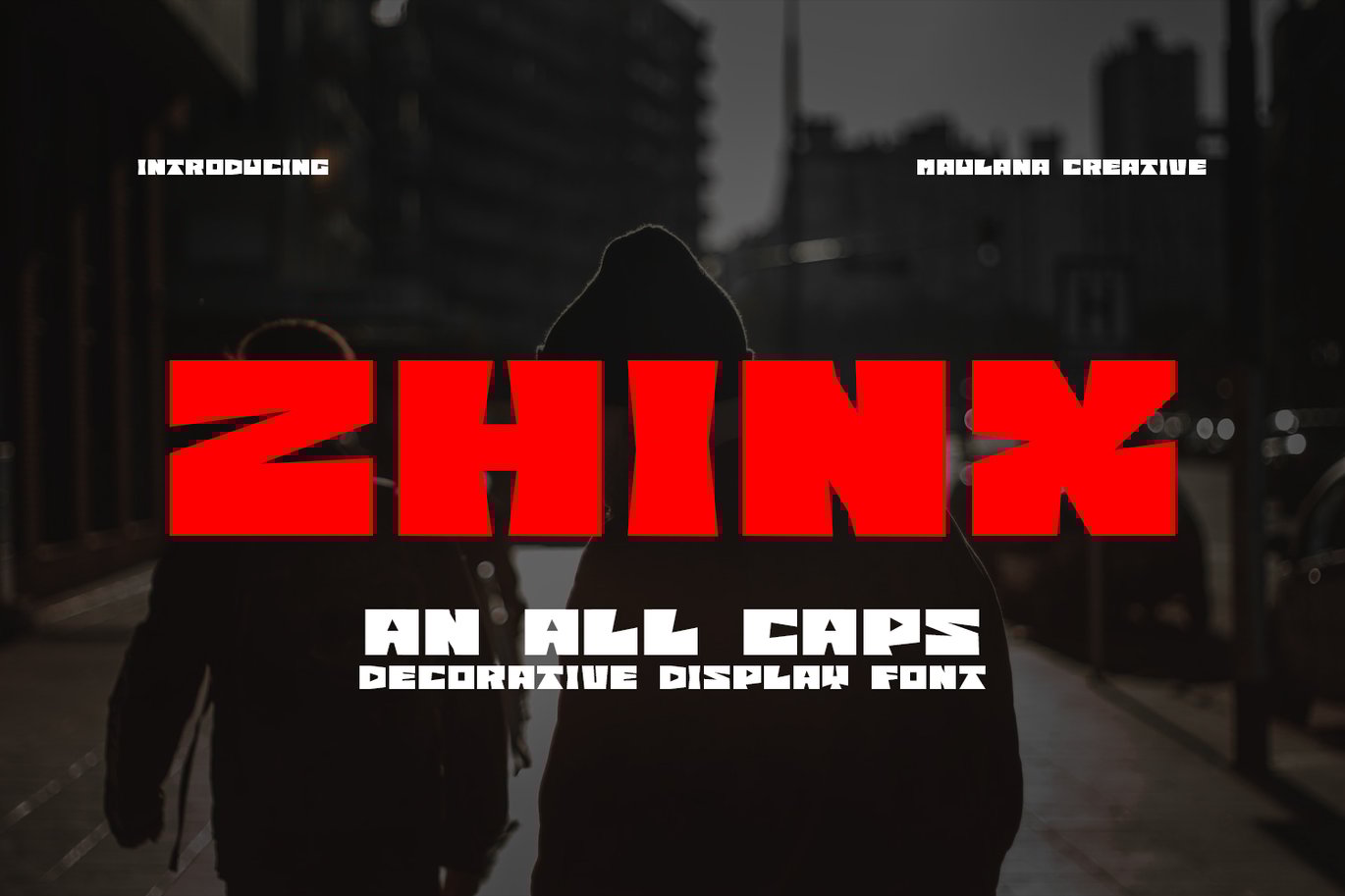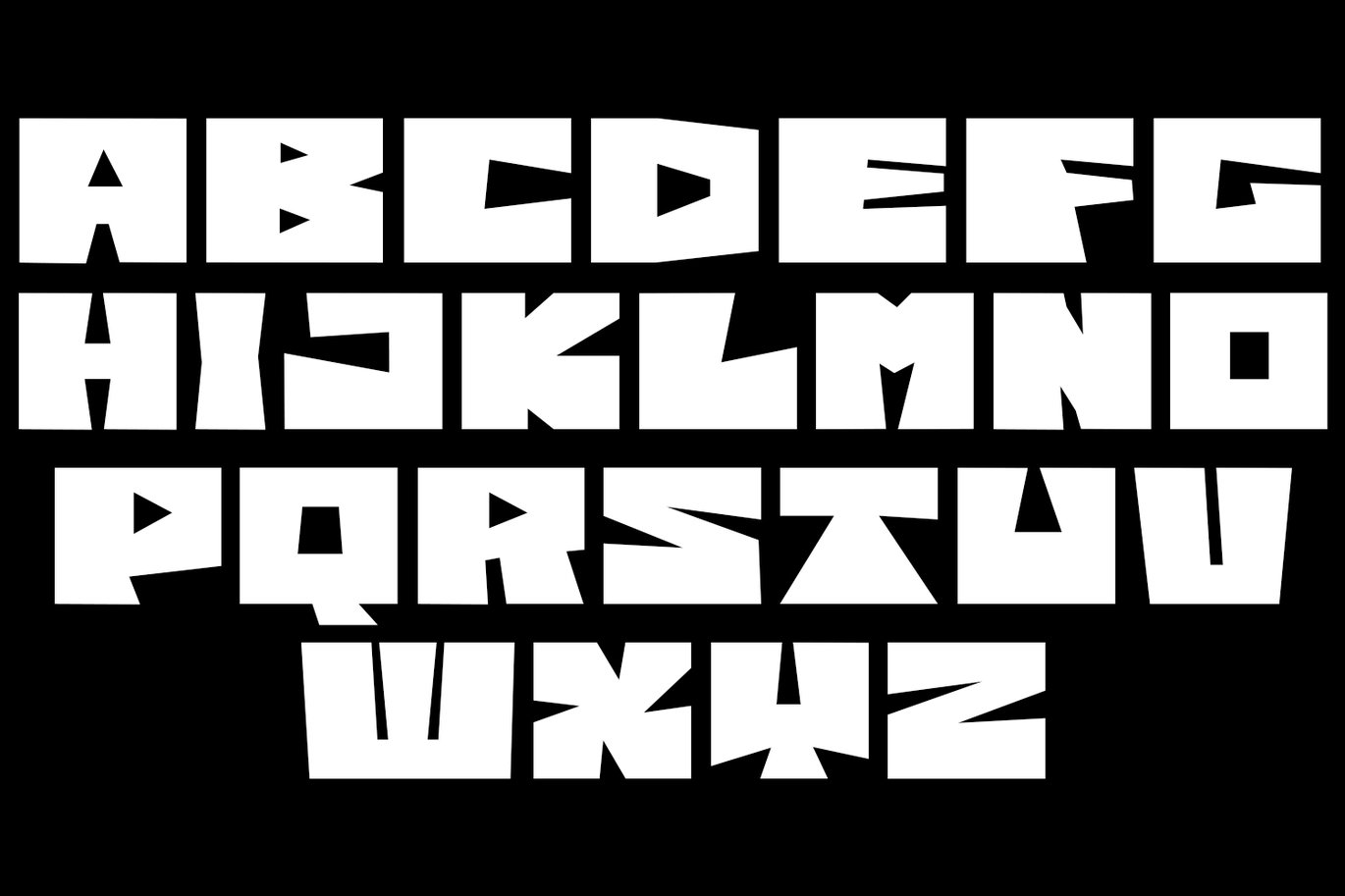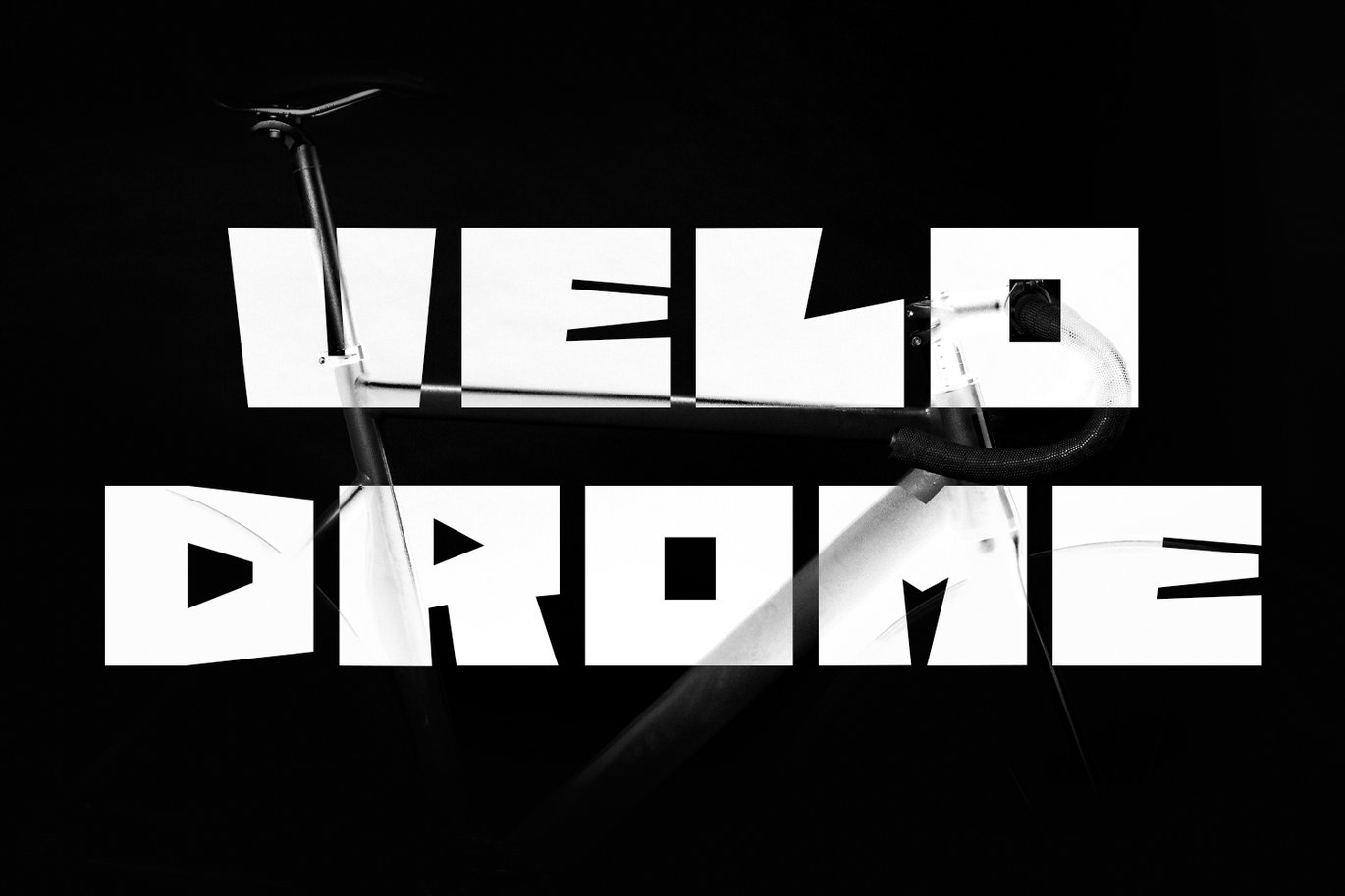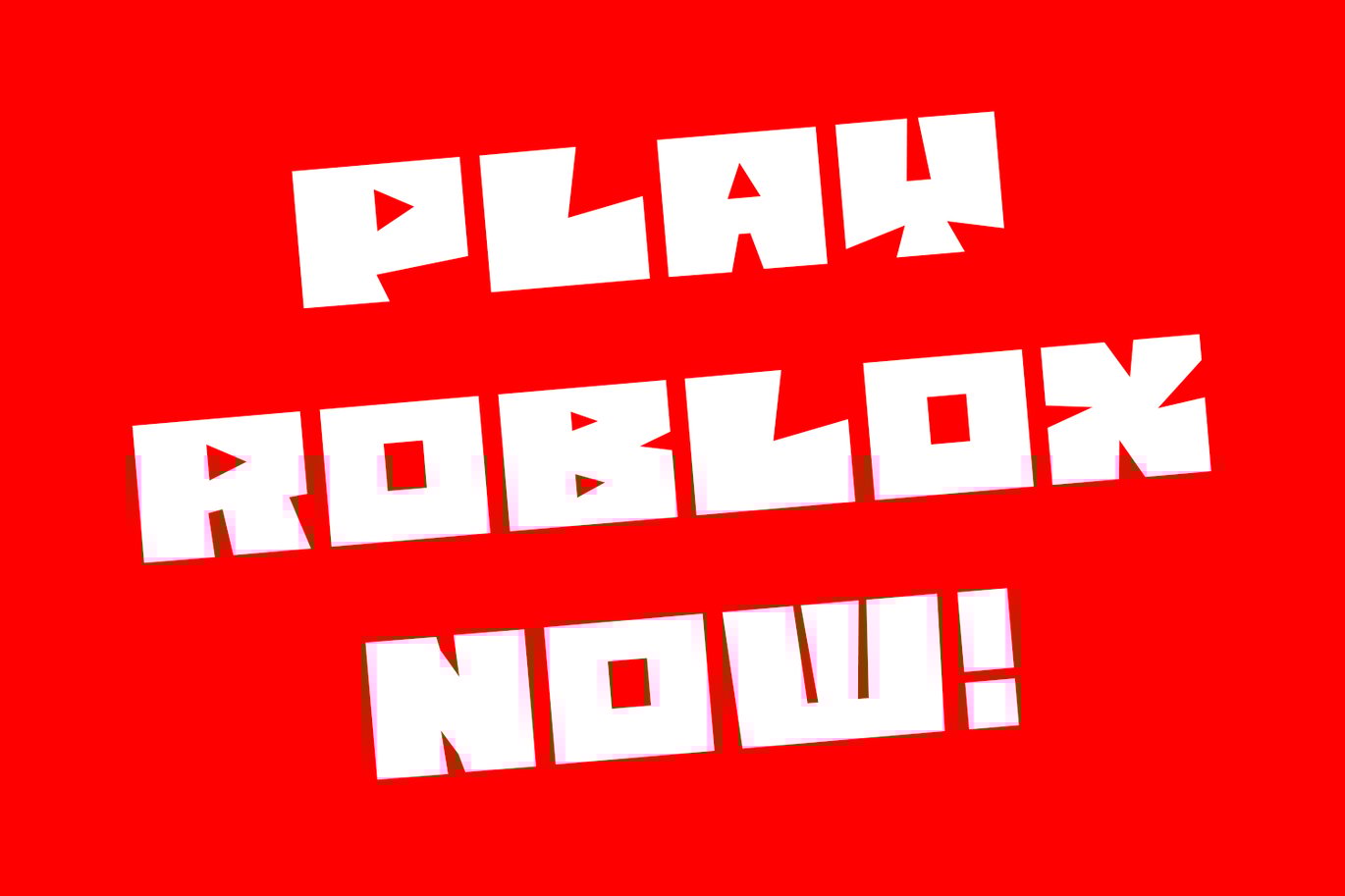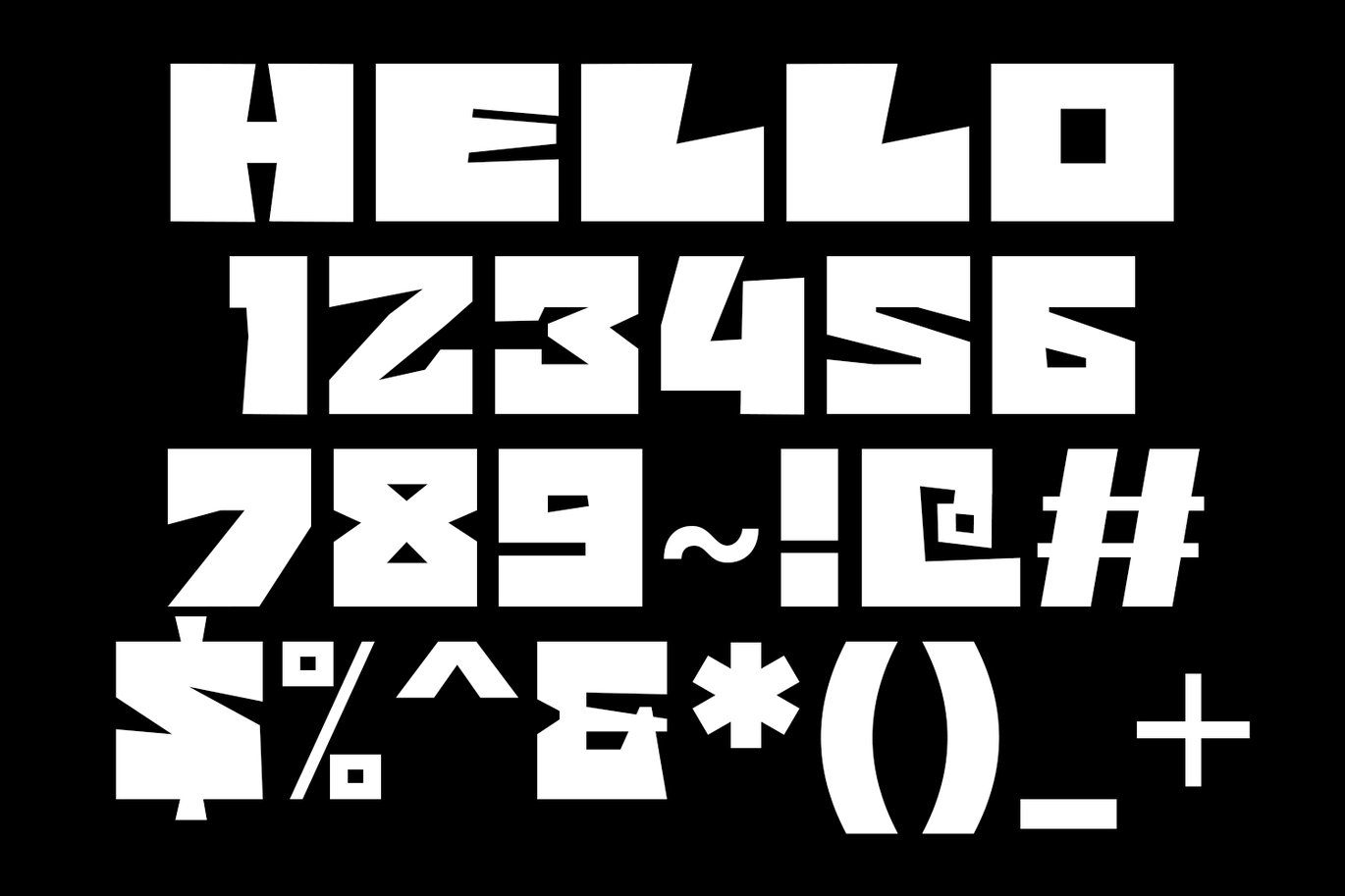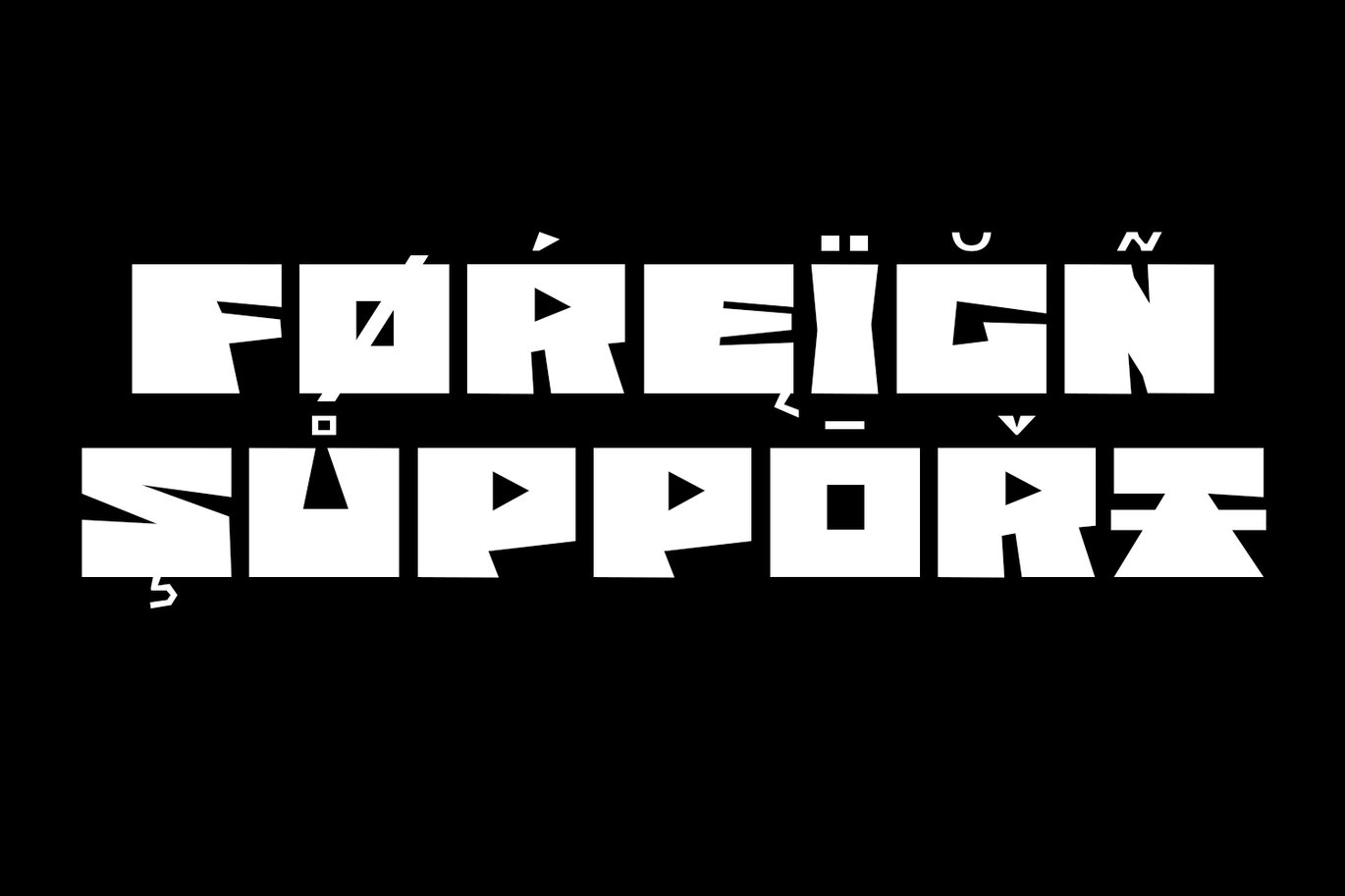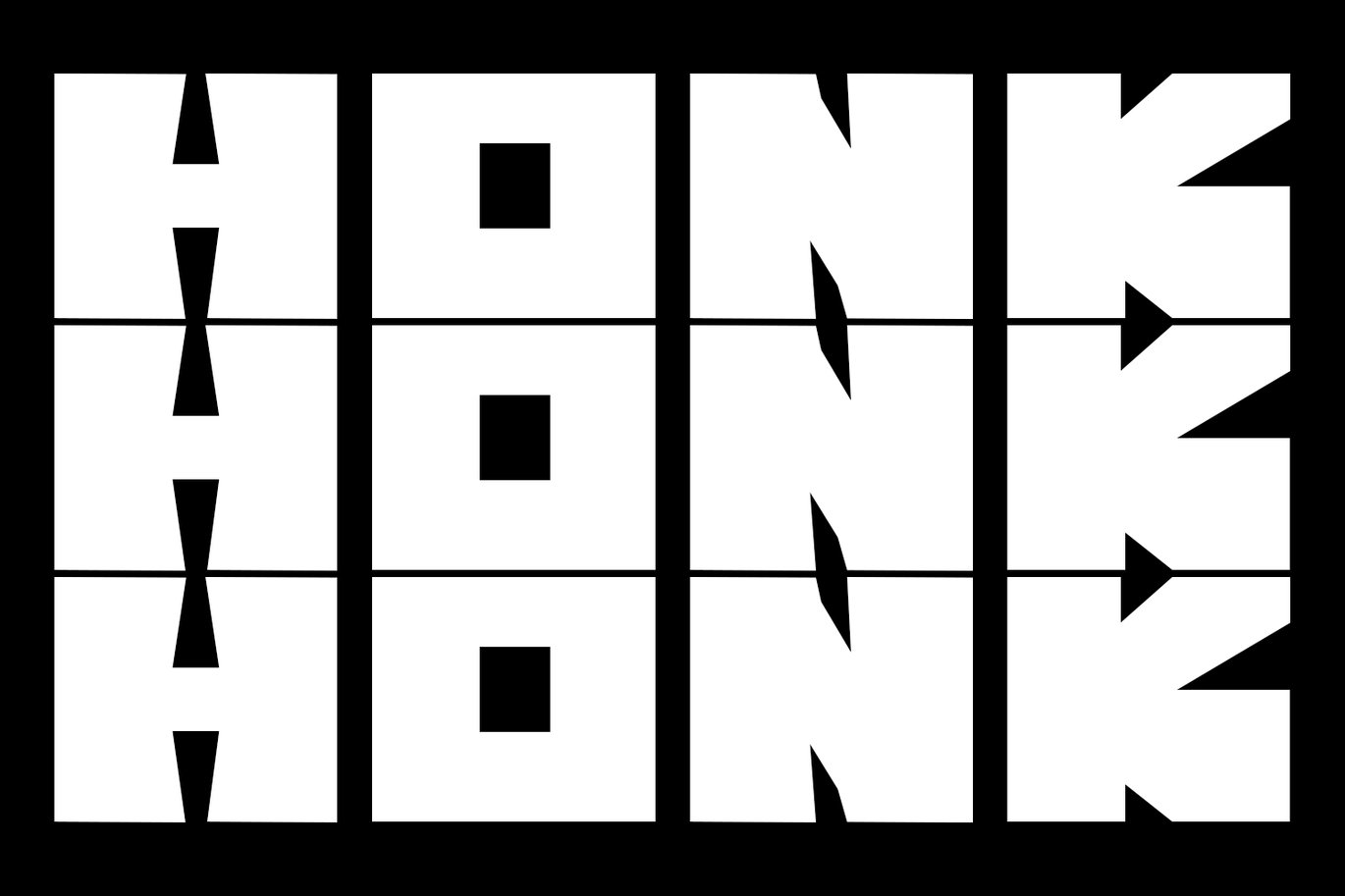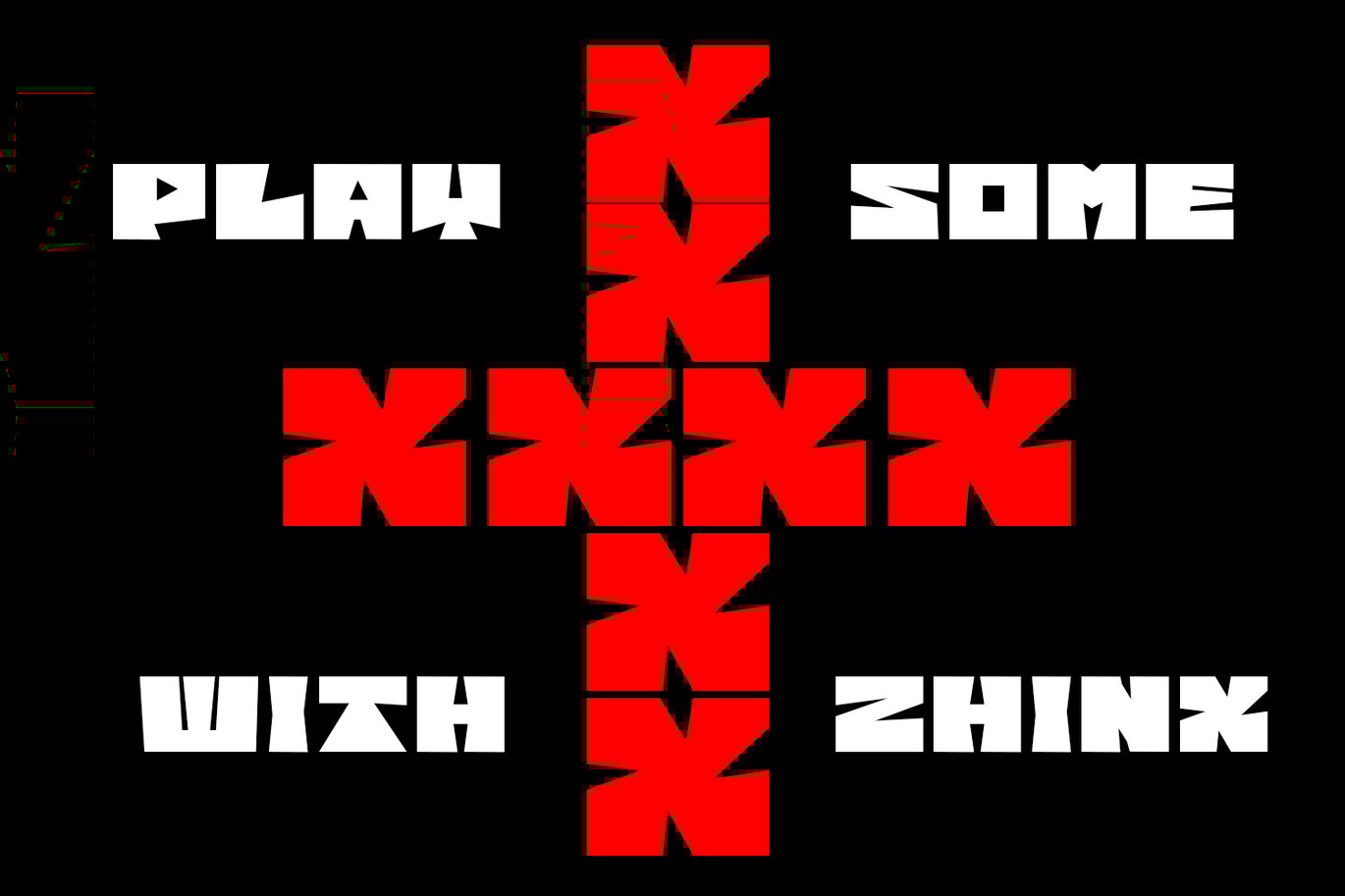
Zhinx Decorative Display Font
Zhinx is a Square Decorative Display font. Heavy stroke, fun character with a bit of ligatures and alternates. To give you an extra creative work. Zhinx font support multilingual more than 100+ language. This font is good for logo design, Social media, Movie Titles, Books Titles, a short text even a long text letter and good for your secondary text font with script or serif. Make a stunning work with Zhinx font.